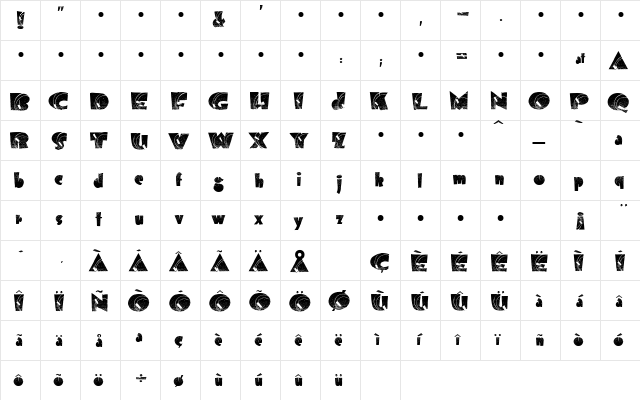
BoldDisplay19412K Regular
BoldDisplay19412K is built around its visual character rather than neutral utility — its distinctive forms are designed to make an impression at display sizes. Its bold stroke weight gives it real presence on the page.
Font Pairing: Pair with a clean neutral sans-serif for body copy to let BoldDisplay19412K's character lead without overwhelming the composition.
Pro Tip: Treat BoldDisplay19412K as the centrepiece of your typographic hierarchy. One strong heading set in a decorative face can carry an entire layout.